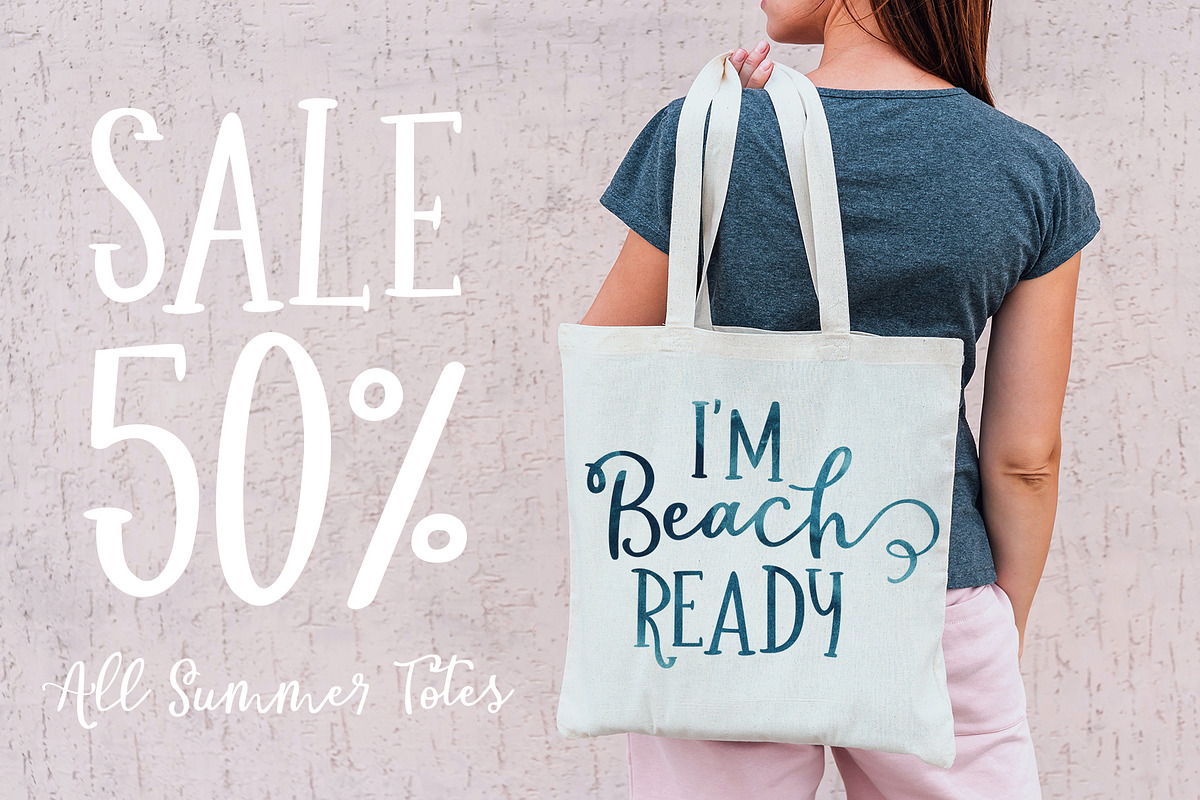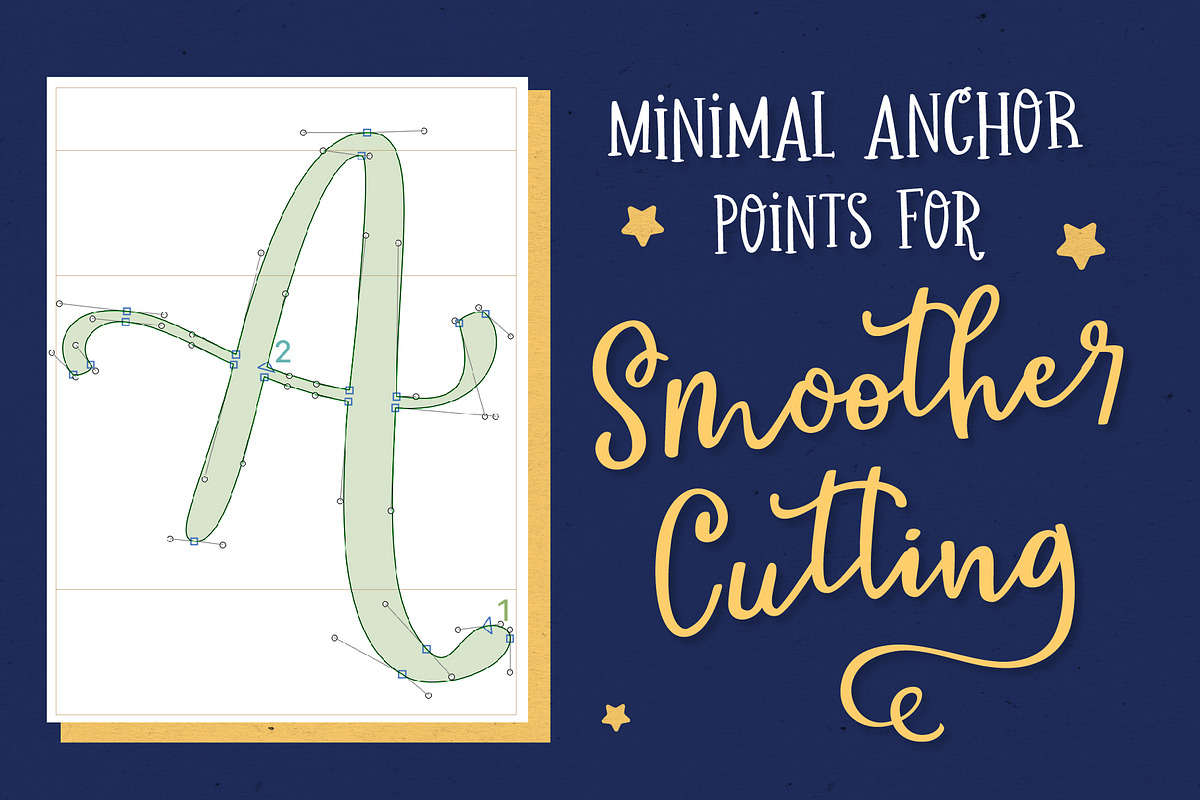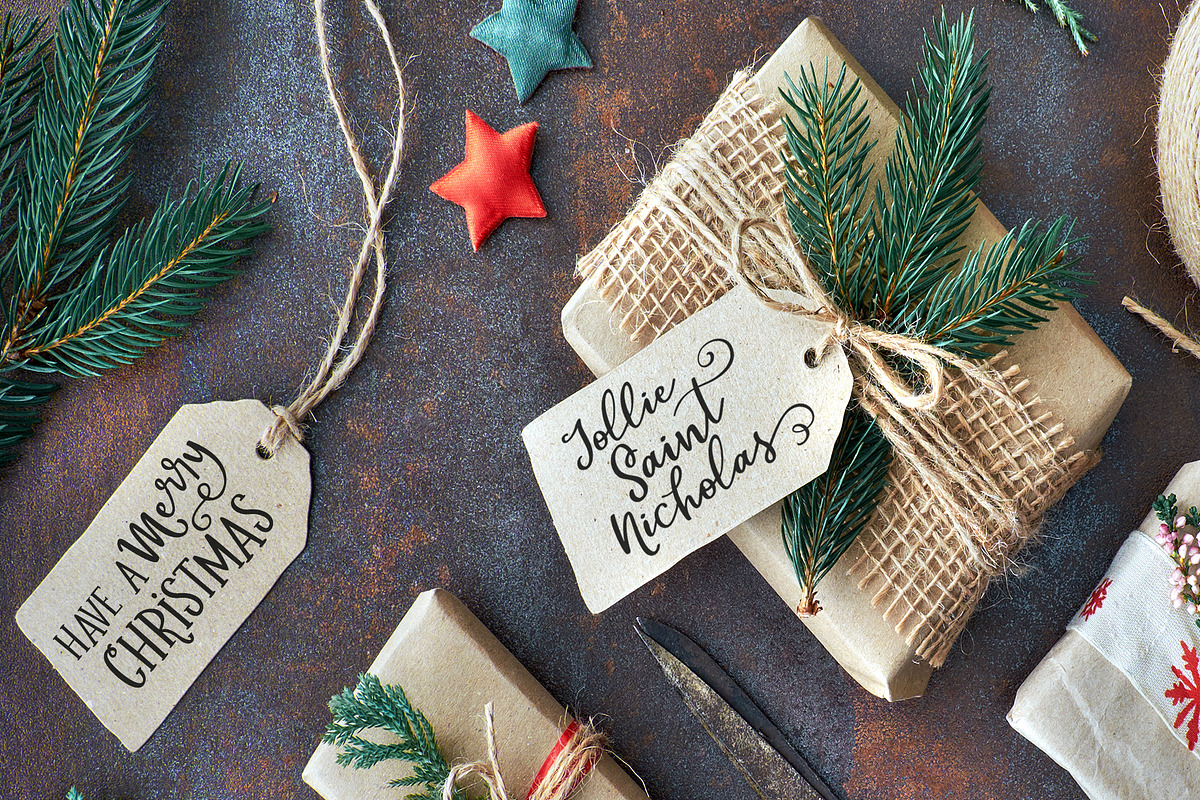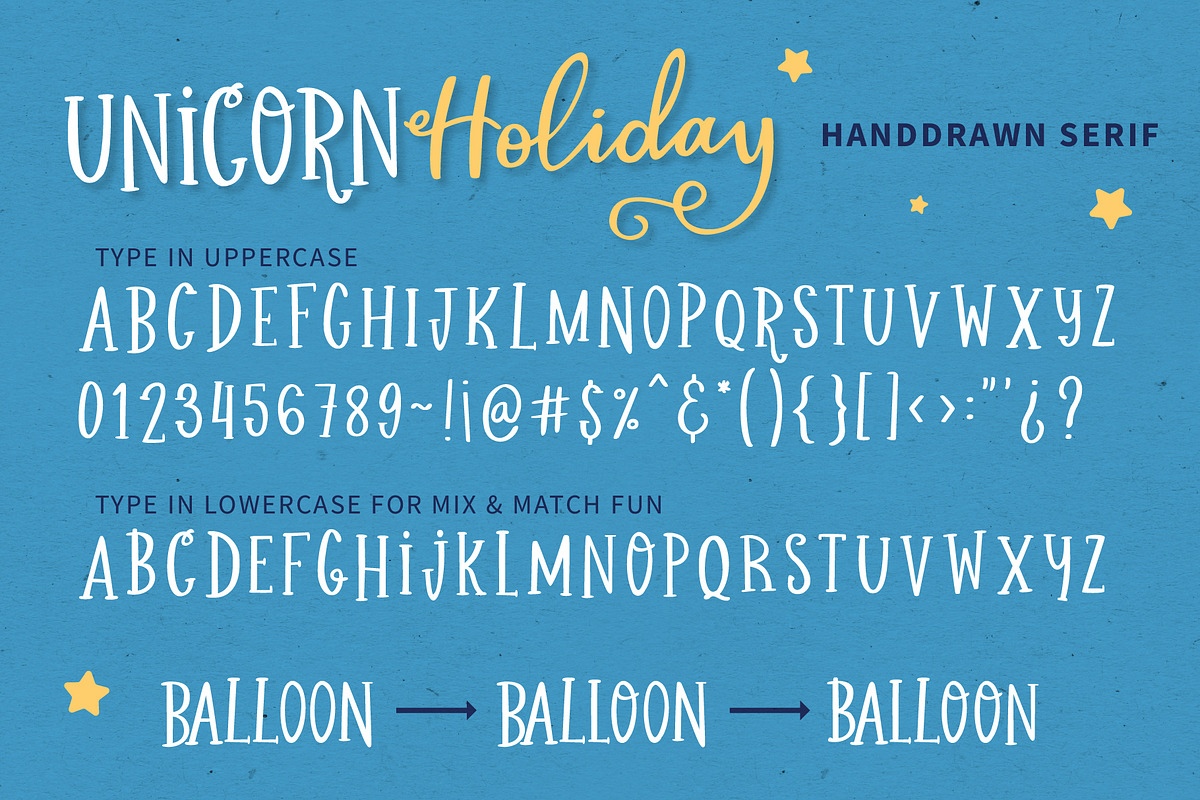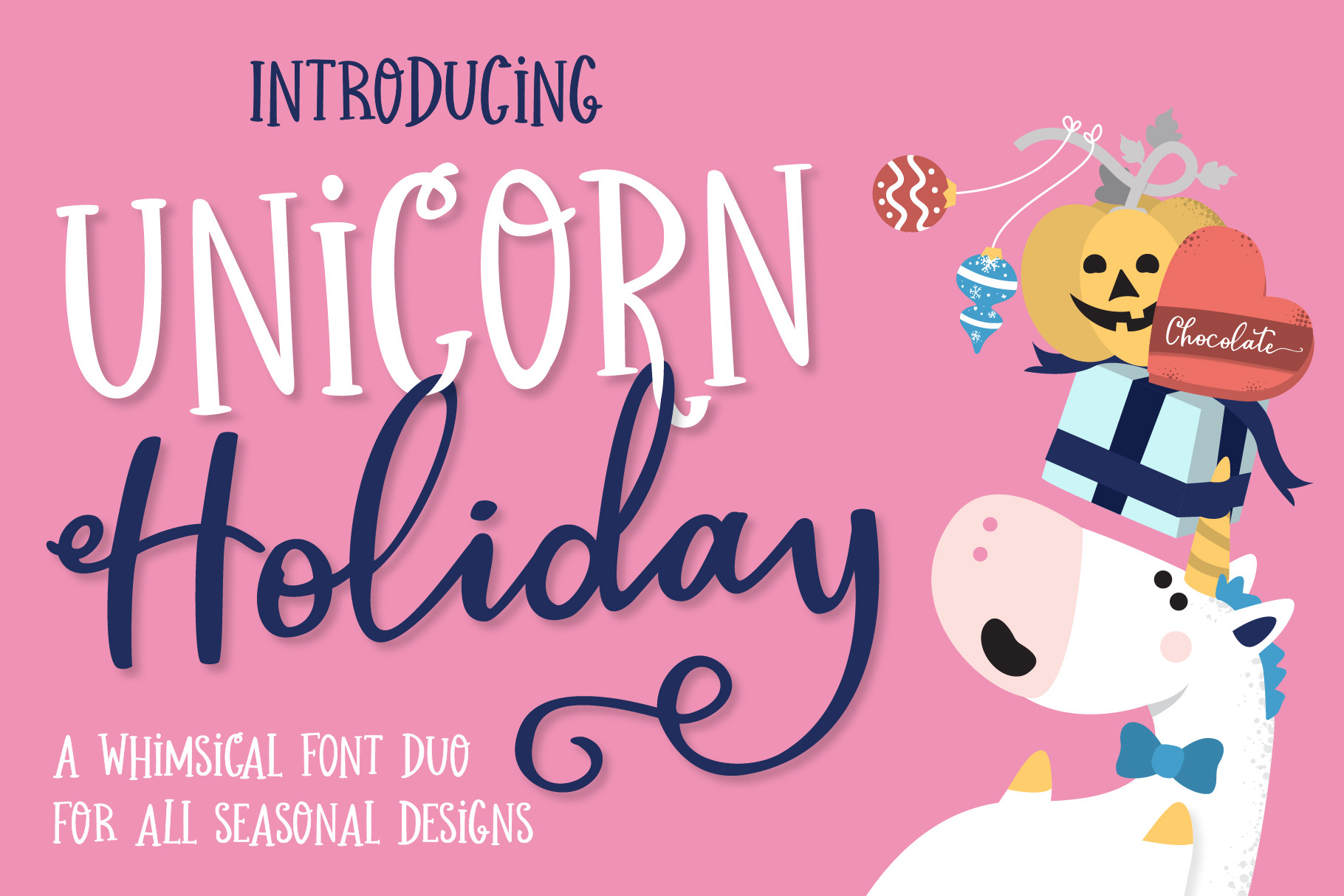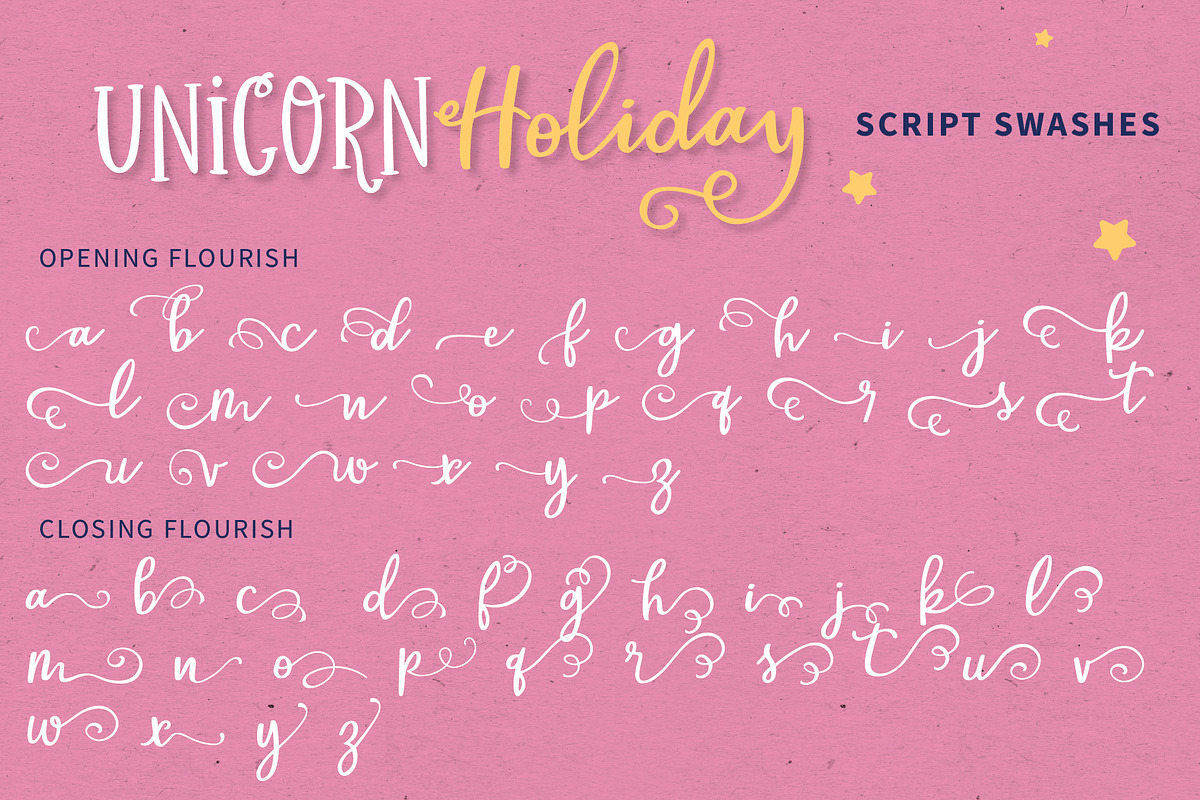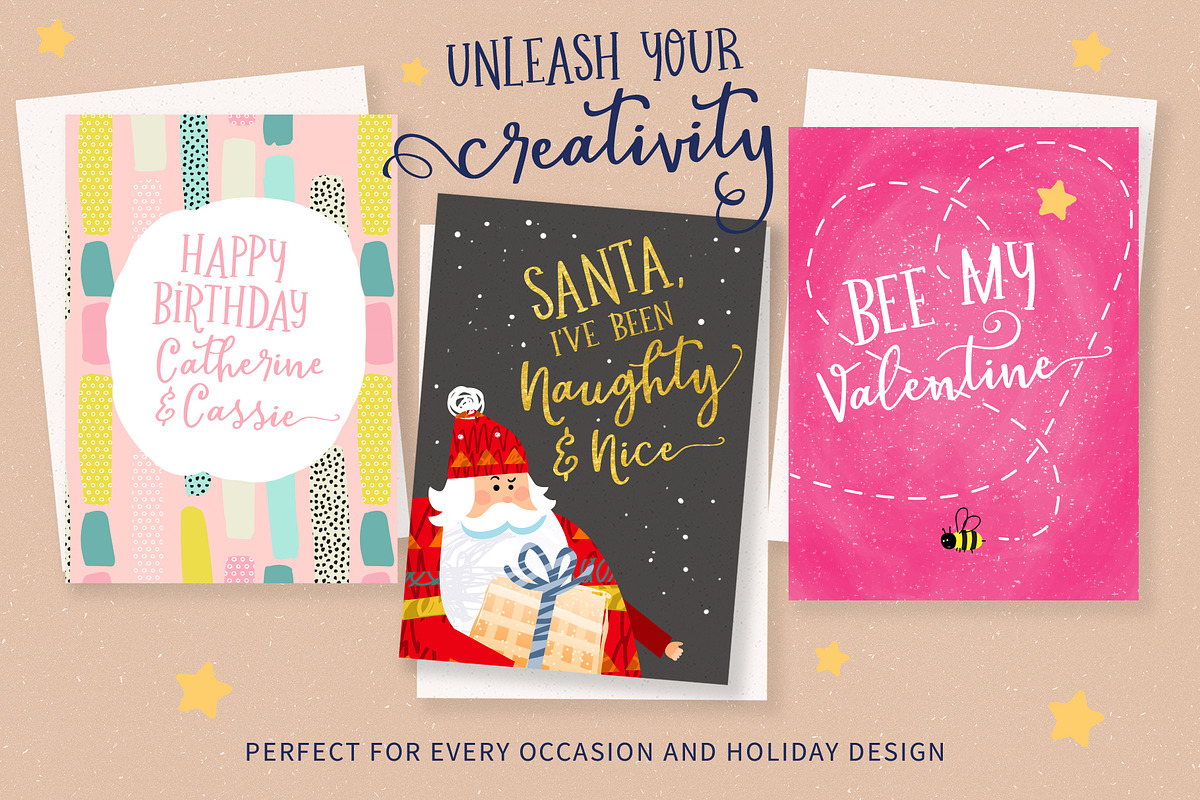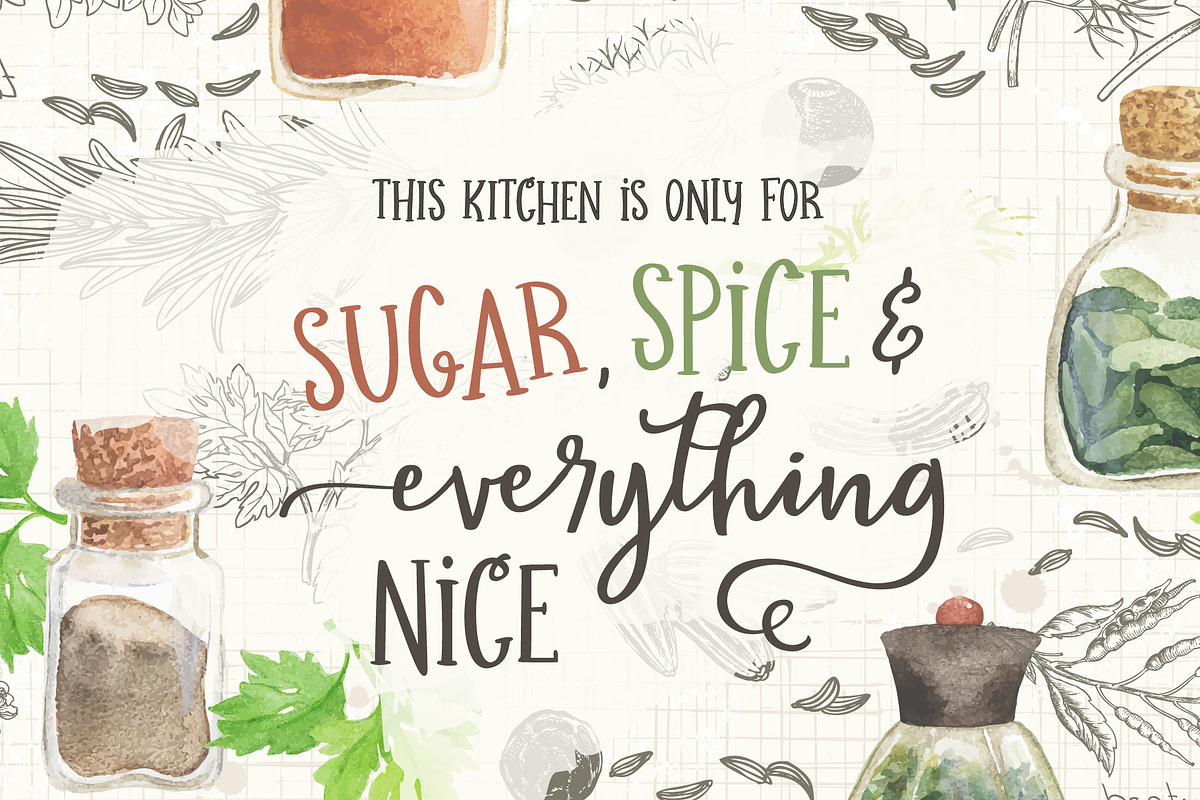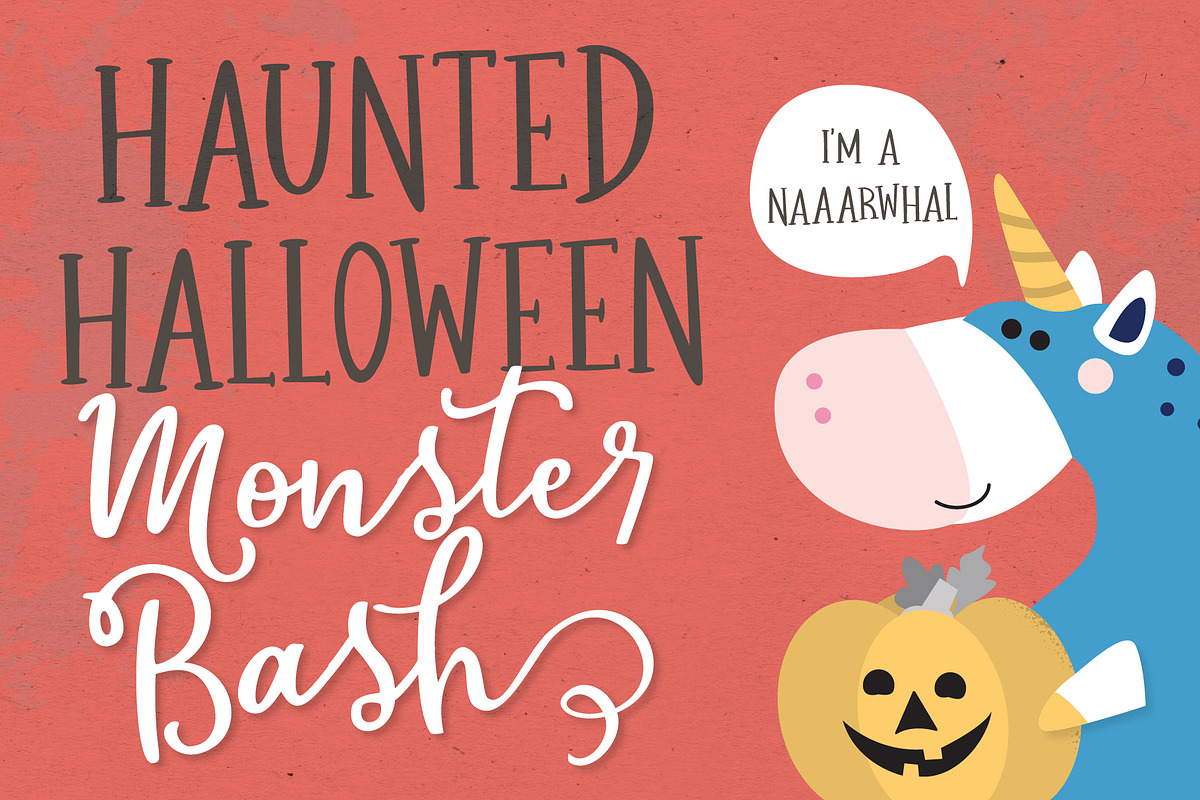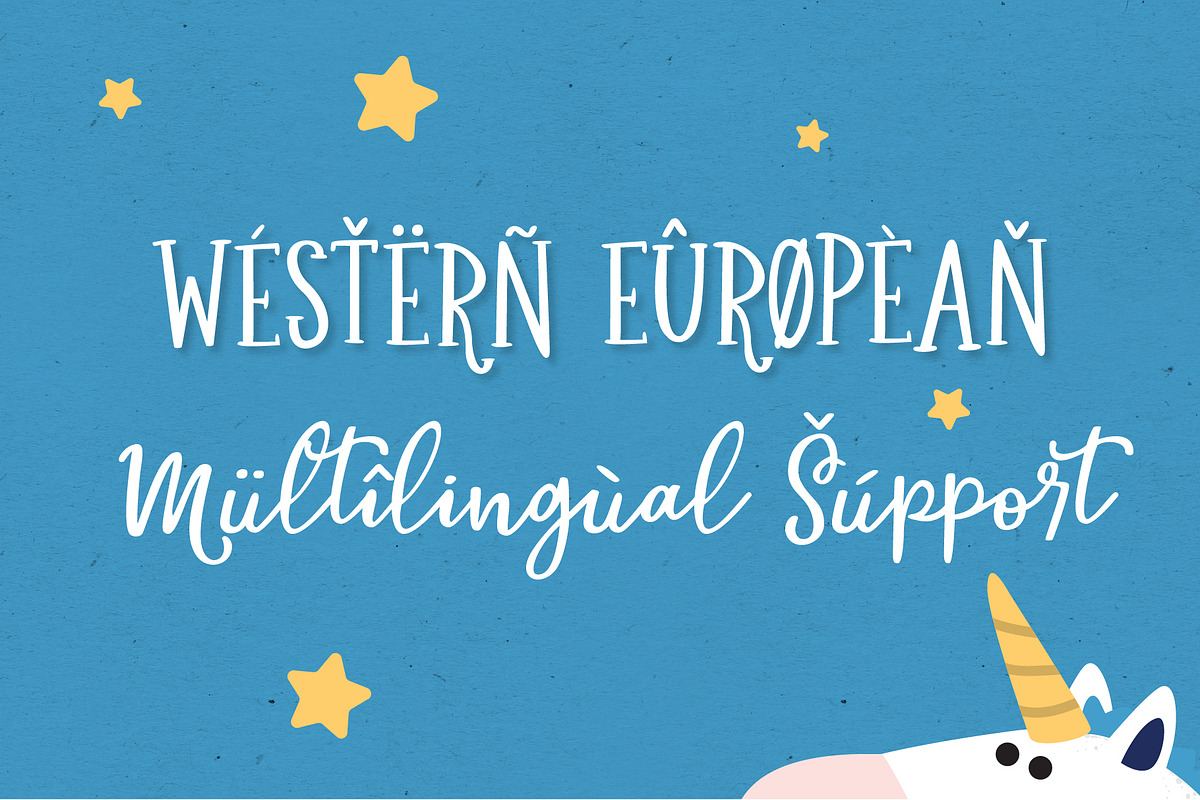
Unicorn Holiday Font Duo
Introducing the Unicorn Holiday Font Duo set. I wanted to create a font set that can complement any seasonal holiday and special events. Whether it's Christmas, Halloween, Wedding, or baby showers, this PUA font is perfect for professional designers, social media, or crafters alike.